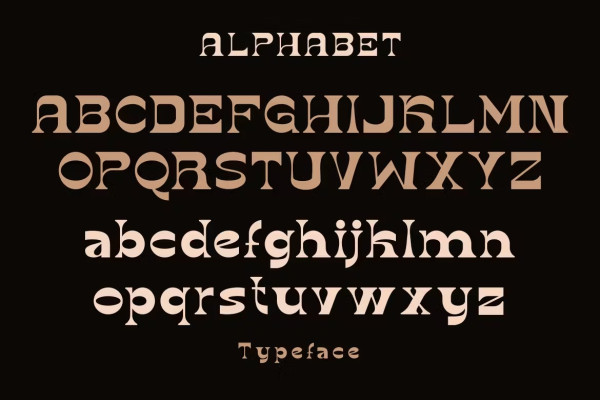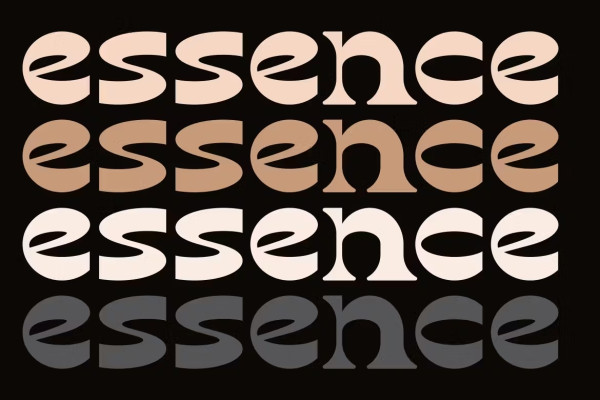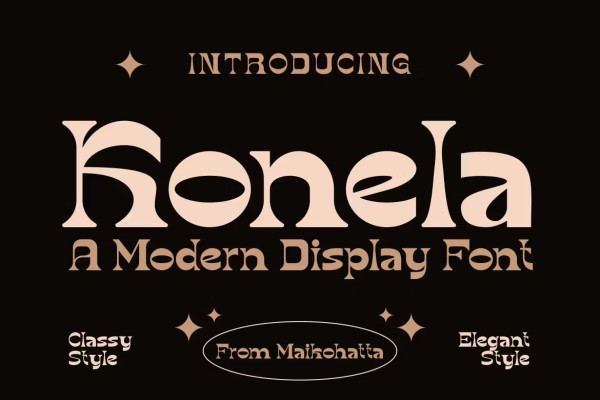
Konela Font
Konela Font – Modern Font is a bold and authentic display font. The font is suitable for any branding project such as logo, Template design, esports, etc. She is exceptional in a wide range of contexts